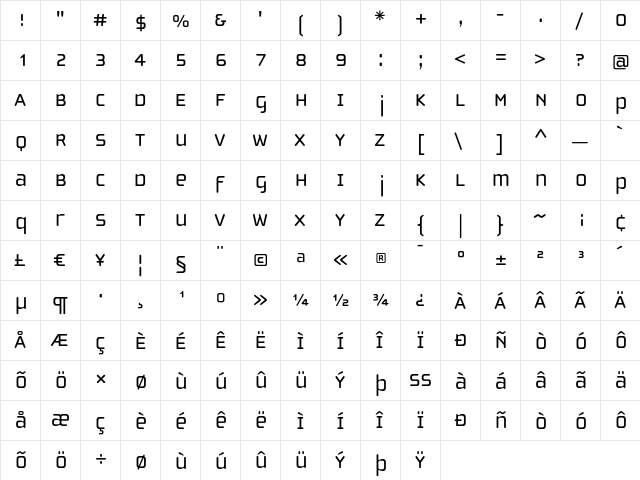
ChollaUnicase Regular
Design Context for ChollaUnicase Typeface
ChollaUnicase offers clean, dependable letterforms without strong stylistic allegiance, making it a practical choice for designers who need flexibility.
Pro Tip: Use ChollaUnicase in both headline and body roles to test its range before committing to a single application.